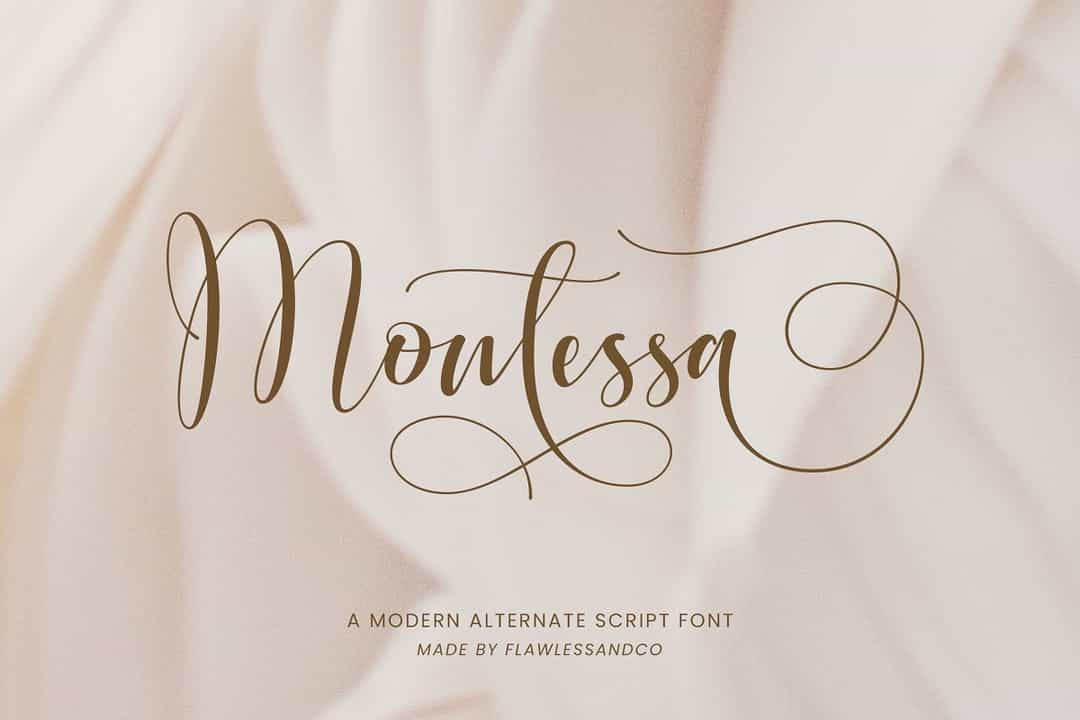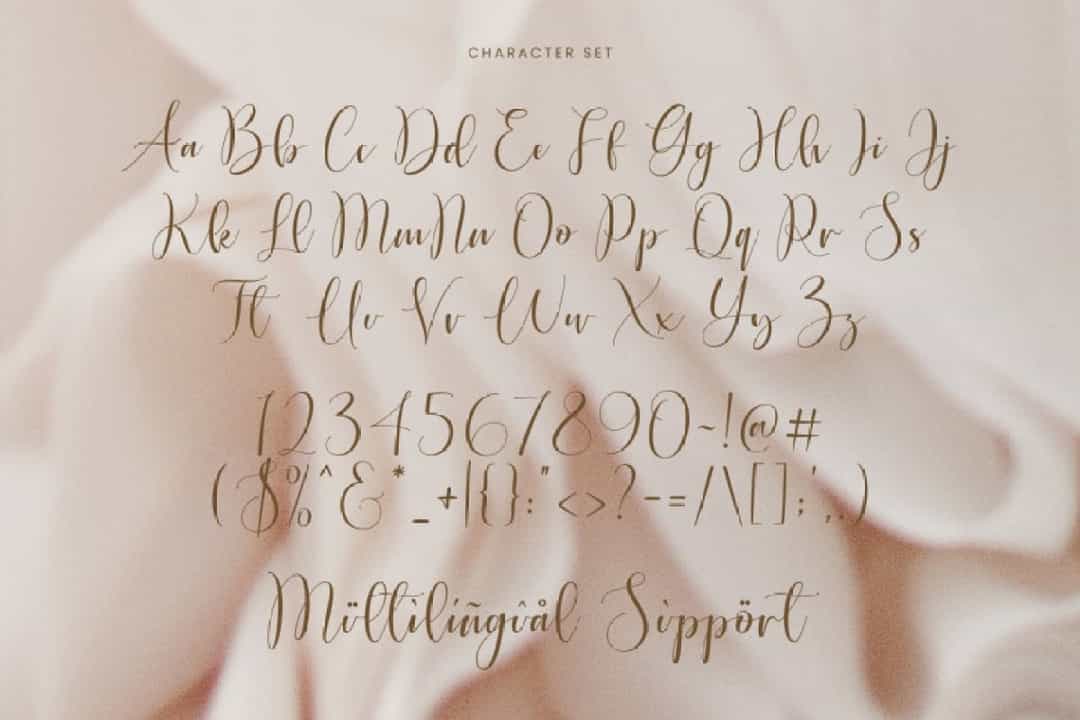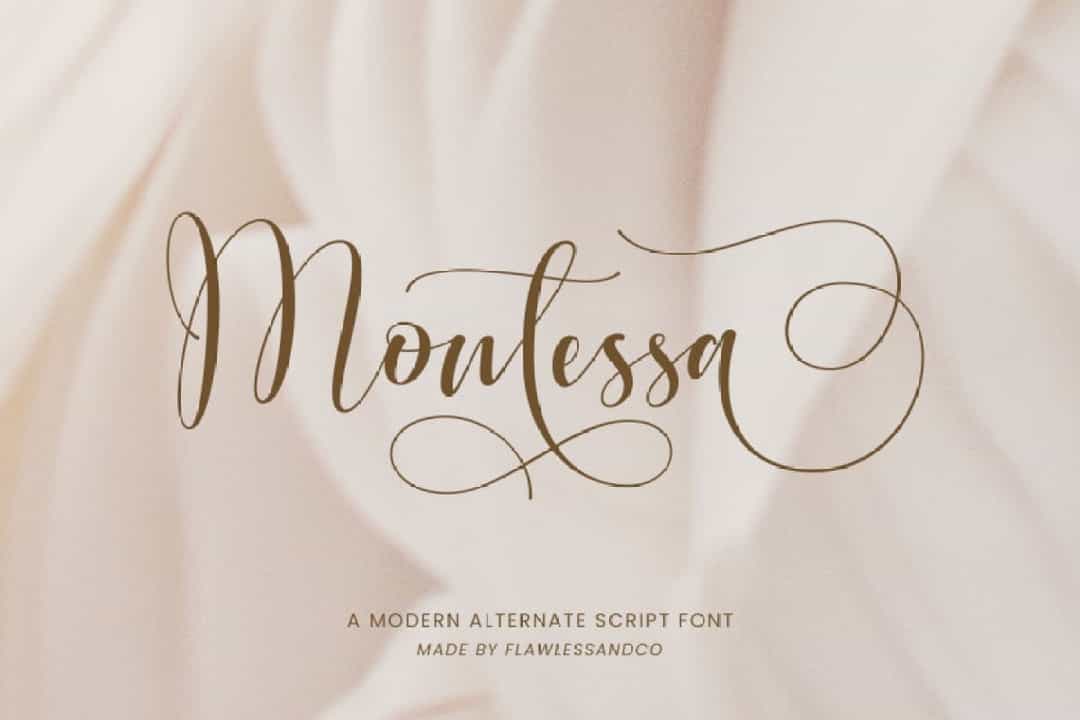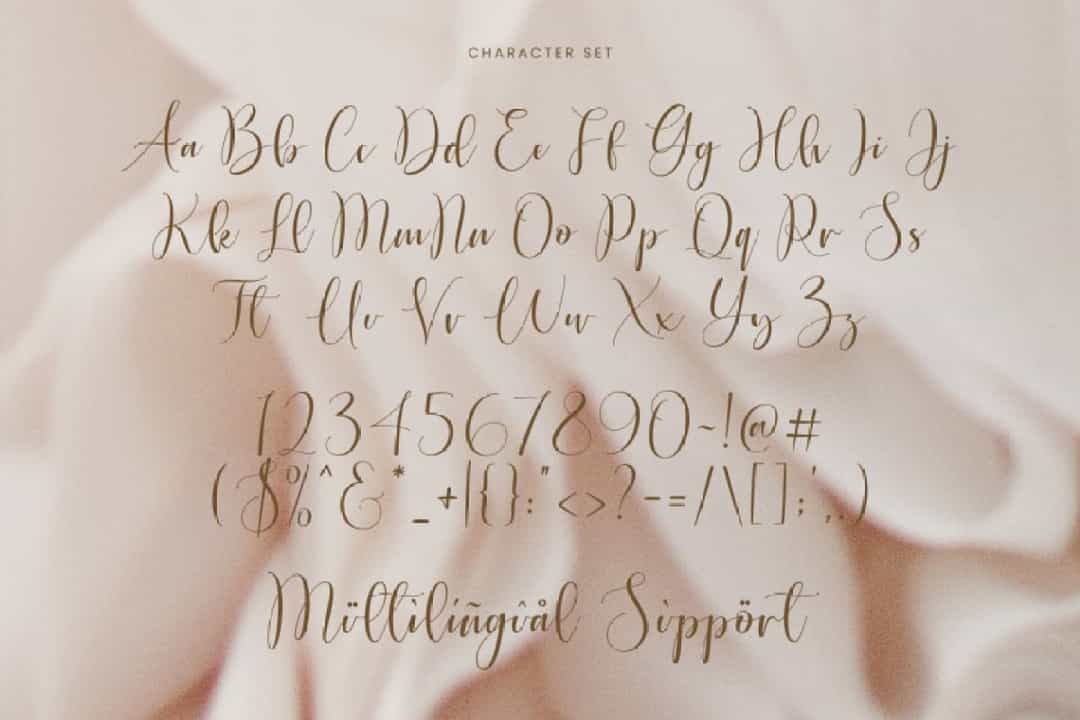
“Montessa” is an innovative alternate script calligraphy font. Discover a new age of design using this modern font which effortlessly merges contemporary aesthetics with timeless elegance. Through its flowing strokes and numerous font options, Montessa transforms any project into a stunning masterpiece.